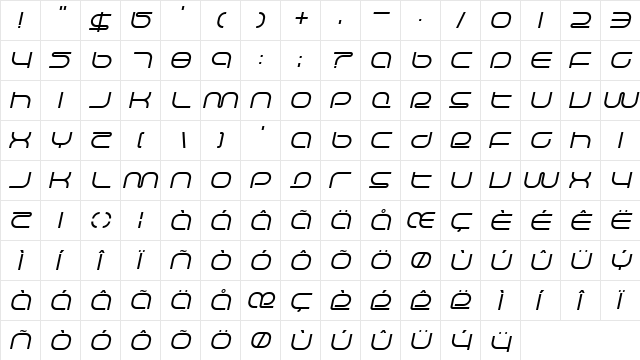
Life Support Italic
| Designer | Andreas Nylin |
Design Context for Life Support Typeface
Life Support offers clean, dependable letterforms without strong stylistic allegiance, making it a practical choice for designers who need flexibility. The dynamic lean of this cut emphasises speed and emphasis in any layout.